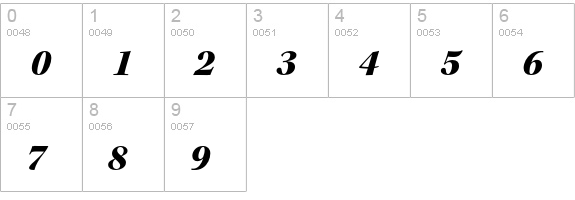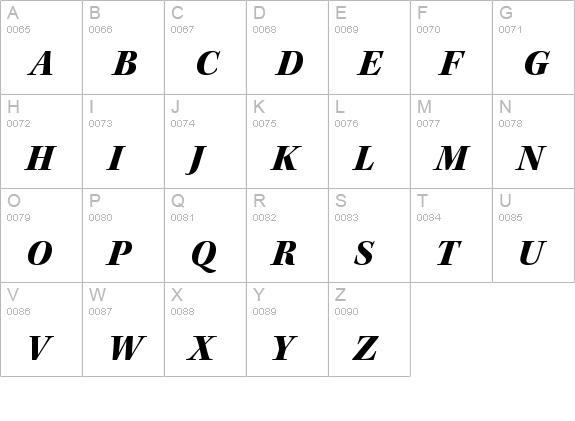
Kepler Std Black Italic Subhead Font Details
Kepler Std Black Italic Subhead is a maximum-weight, dramatic, italic variant in the Kepler typeface family \xE2\x80\x94 well suited to maximum-impact headlines, posters, and packaging.
Kepler Std Black Italic Subhead is a bold and striking font that exudes elegance and sophistication. Its sleek and slanted design adds a touch of modernity to any design project, making it the perfect choice for subheadings and titles that need to grab attention. With its thick strokes and italicized form, Kepler Std Black Italic Subhead commands a strong presence on the page, effortlessly drawing the eye to important information. Whether it's used in print materials or on digital platforms, this font captures the essence of professionalism and refinement. What sets Kepler Std Black Italic Subhead apart is not just its captivating aesthetics, but also its availability as a free download. FontsMarket.com offers this remarkable font for free, allowing designers and creatives to access its power without any financial constraints. This generous offer makes it an invaluable resource for those seeking high-quality fonts without breaking the bank. Embrace the boldness and sophistication of Kepler Std Black Italic Subhead as you enhance your designs. Its freely available download at FontsMarket.com enables you to effortlessly elevate your projects with its striking presence and timeless appeal.